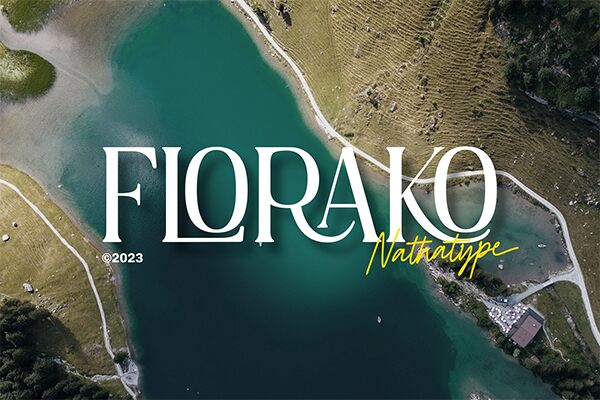
Florako font is an elegant serif font by Nathatype. The classical typeface has a vintage charm to it, making it suitable for serious and professional products. Refined details and a thoughtful design structure ensure that whatever text is written using this font looks sophisticated and exceptional.
Choose between creating digital or print designs with Florako and the end result will be absorbed by the audience in both cases. Physical products to use the free serif font in include logos, posters, advertisements, labels, magazines, invitations, books etc. As for digital projects which can benefit from Florako’s elegance are social media content (Instagram stories & posts), website headers or landing pages and mobile / desktop apps.